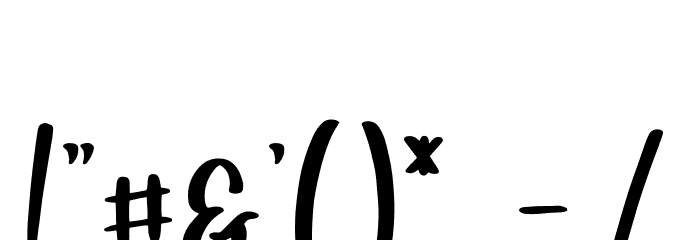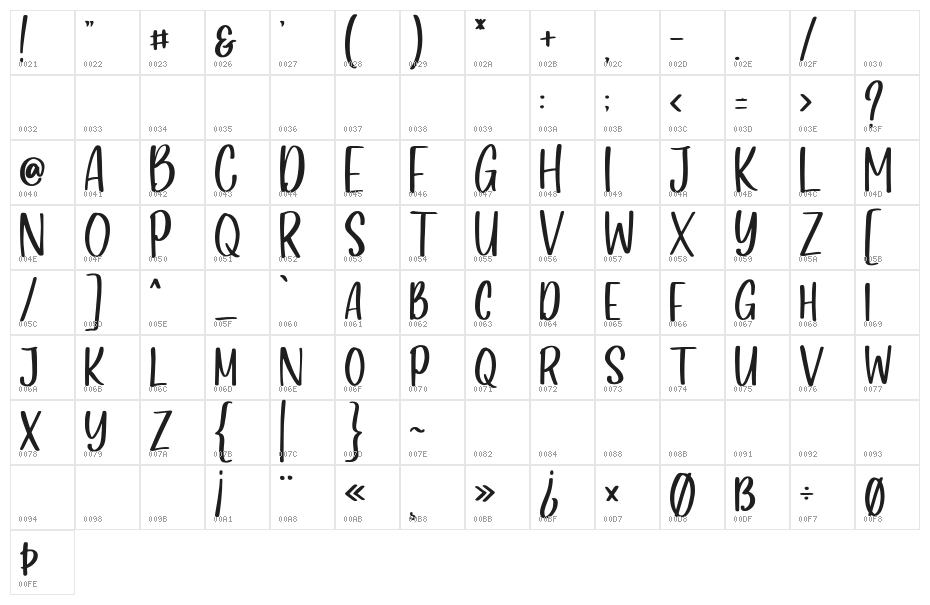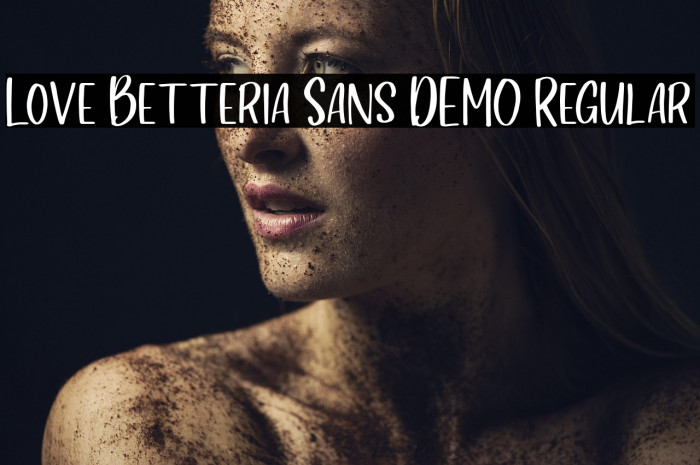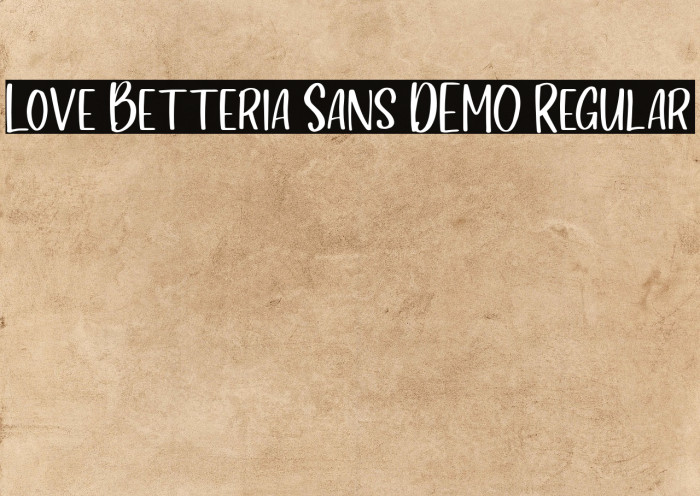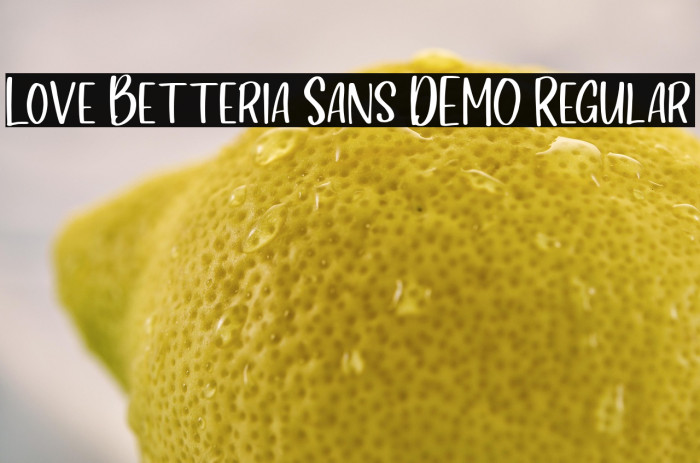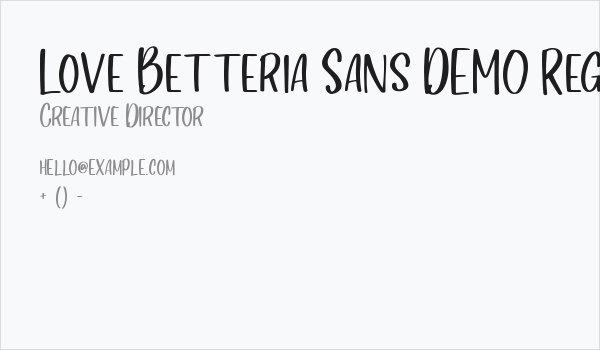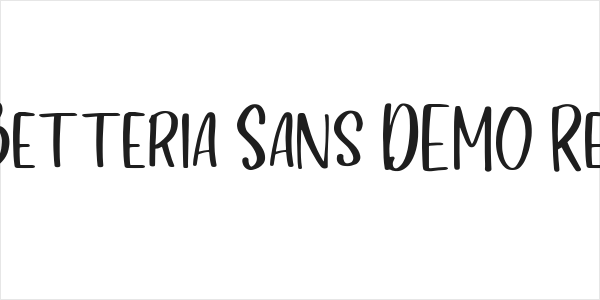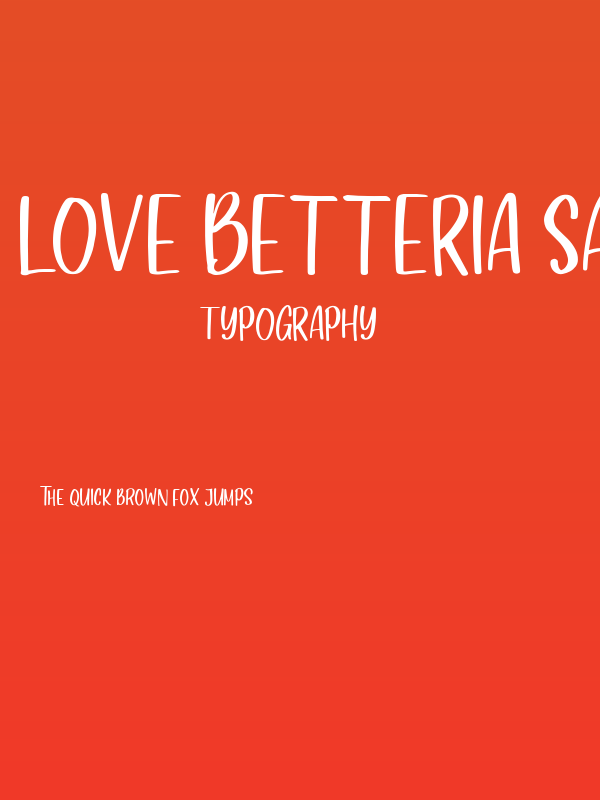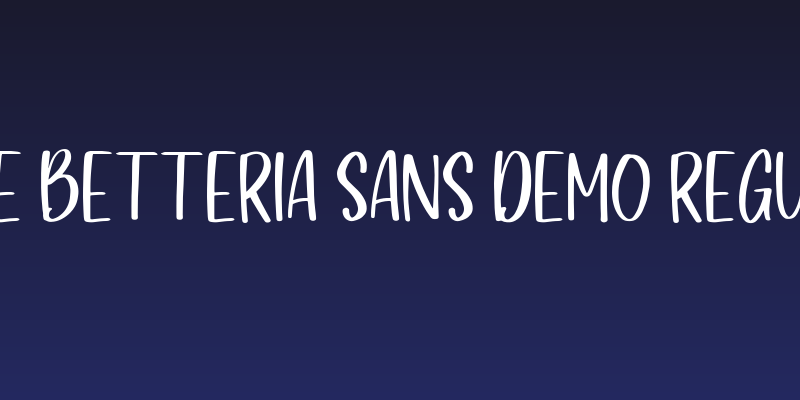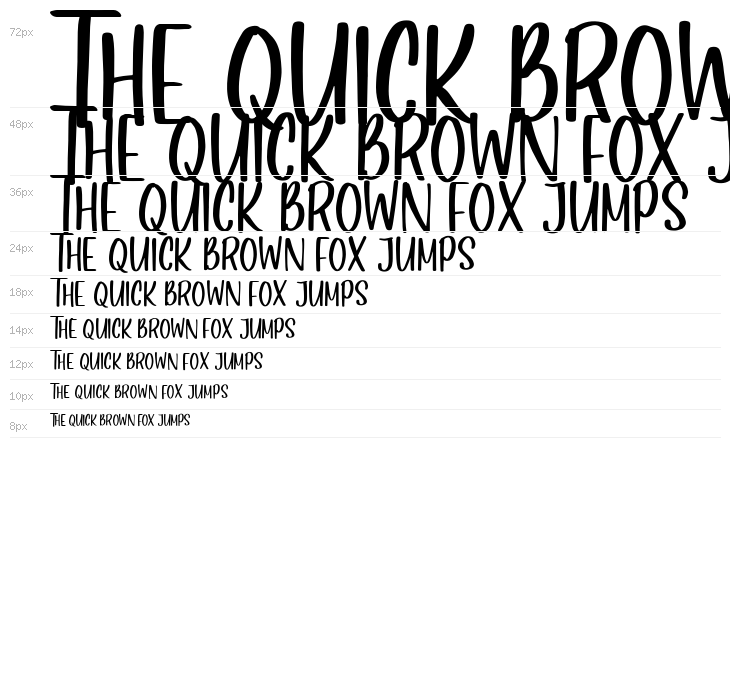
Love Betteria Sans DEMO Regular Font
Love Betteria Sans DEMO Regular Description
This font features a playful and energetic handwritten style, characterized by its bold and flowing strokes. The uppercase letters are tall and slightly narrow, with a consistent stroke width that gives a uniform appearance. The lowercase letters maintain the same lively feel, with rounded edges and a slight slant that adds to the casual aesthetic. The numerals and special characters are designed to match the overall style, ensuring a cohesive look across all text. This font's informal and friendly vibe makes it suitable for a variety of creative projects.